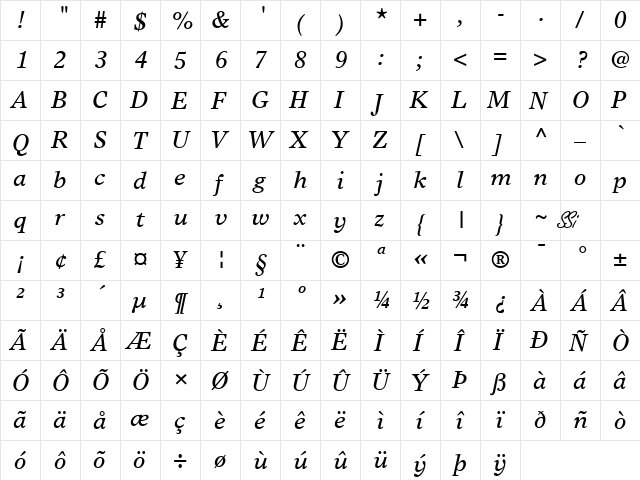
Greco Europa SSi Italic
Design Context for Greco Europa SSi Typeface
Greco Europa SSi is a composed and adaptable typeface that performs quietly and consistently across a wide range of design contexts. The slanted form adds forward momentum and visual energy.
Pro Tip: Try Greco Europa SSi for annotation and caption copy alongside an upright companion — the contrast in angle creates a dynamic but ordered typographic system.